Brand new artistic & creative style typography bundle with 12 multilingual display font sets with lot of ligatures! All these fonts are trendy, classy, retro & unique so you can use it for any kind of modern or artistic style branding projects or T-shirt designs 😉
Trendy & Decorative Fonts from Burntilldead contains 12 unique, artitsic & decorative display font sets for your new projects! Don’t miss this creative & fashion style font & branding bundle 😉
- 12 trendy & decorative display fonts for your new projects!
- Great for any branding projects, posters or T-shirt designs…
- Multilingual support, stylistic alternates & lot of ligatures…
Creative & artistic display fonts for your new projects!
01. Broto – Display font & 100 ligatures from Burntilldead
Introducing “Broto” brand new display font with high contrast letterforms. Powered with 100 ligatures to bring fluent looks combination. Perfect and suitable for branding, headline, logotype, sticker, editorial design, and etc.
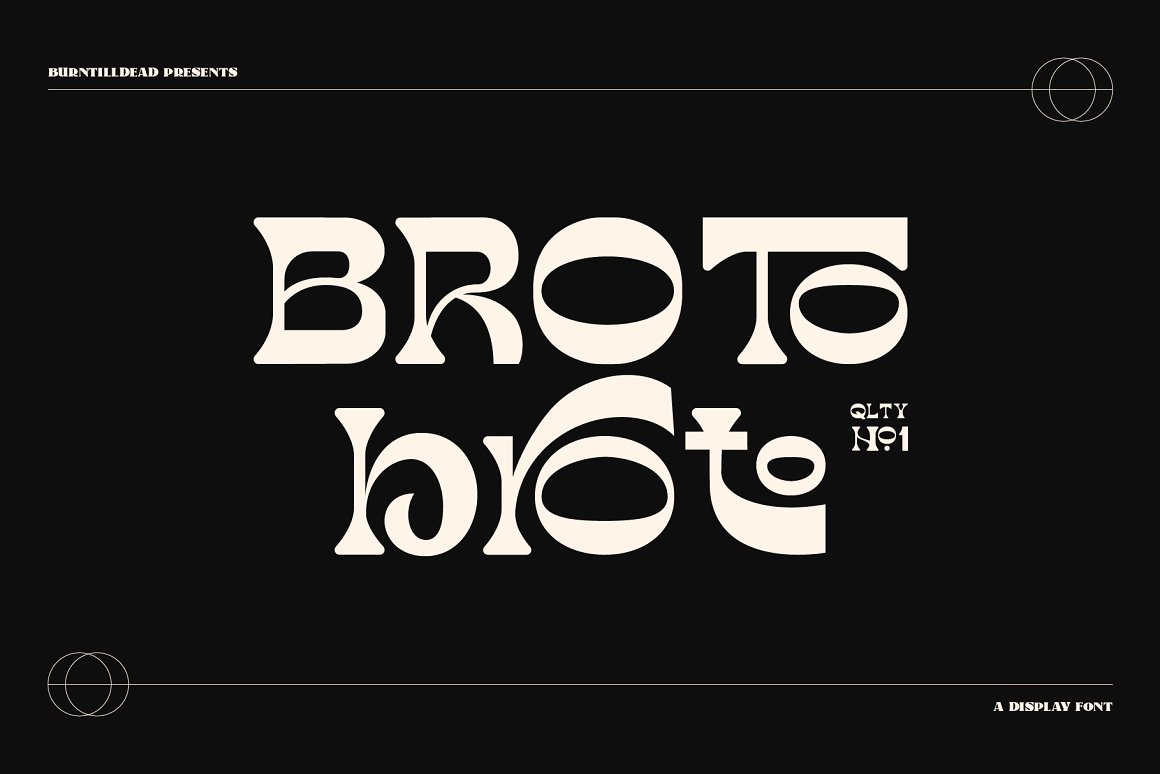
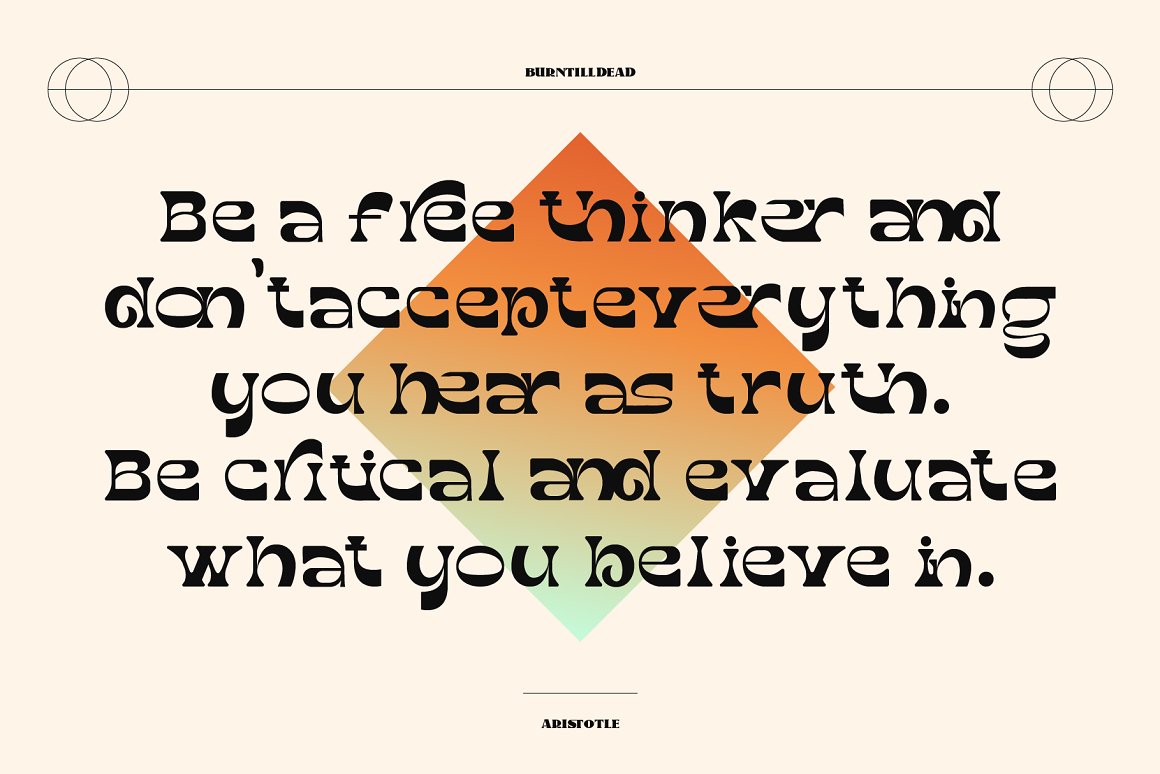
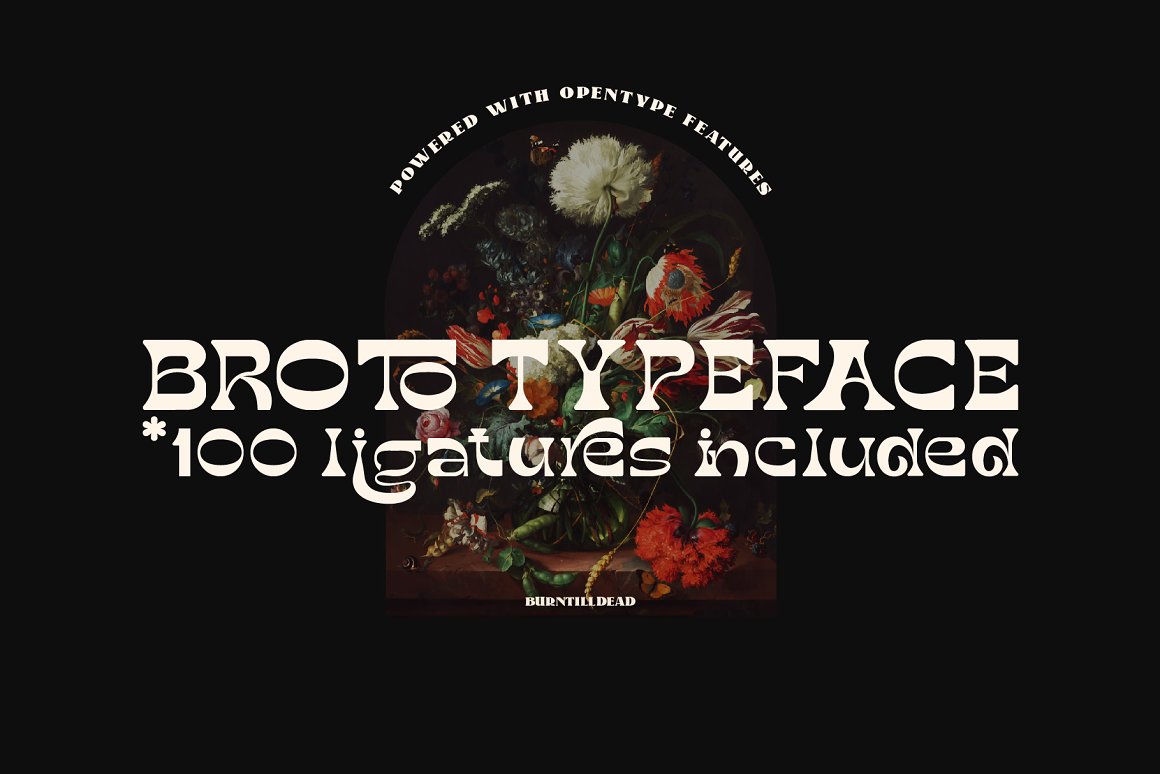
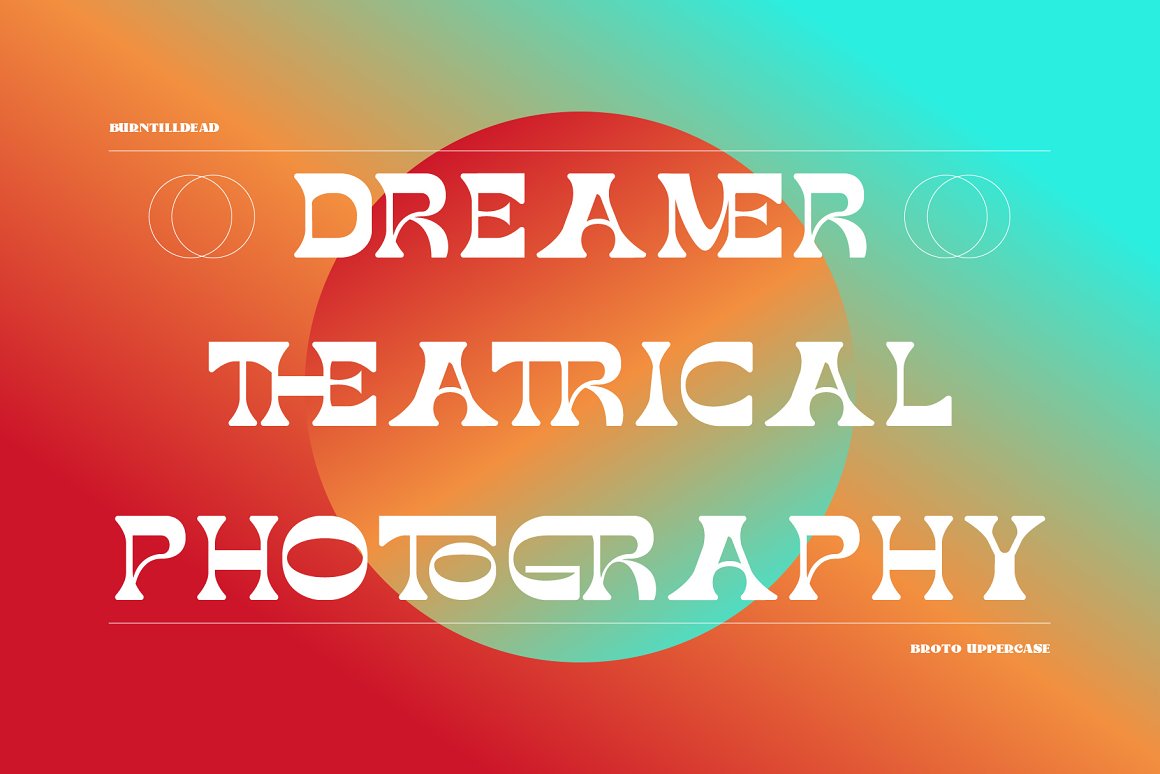
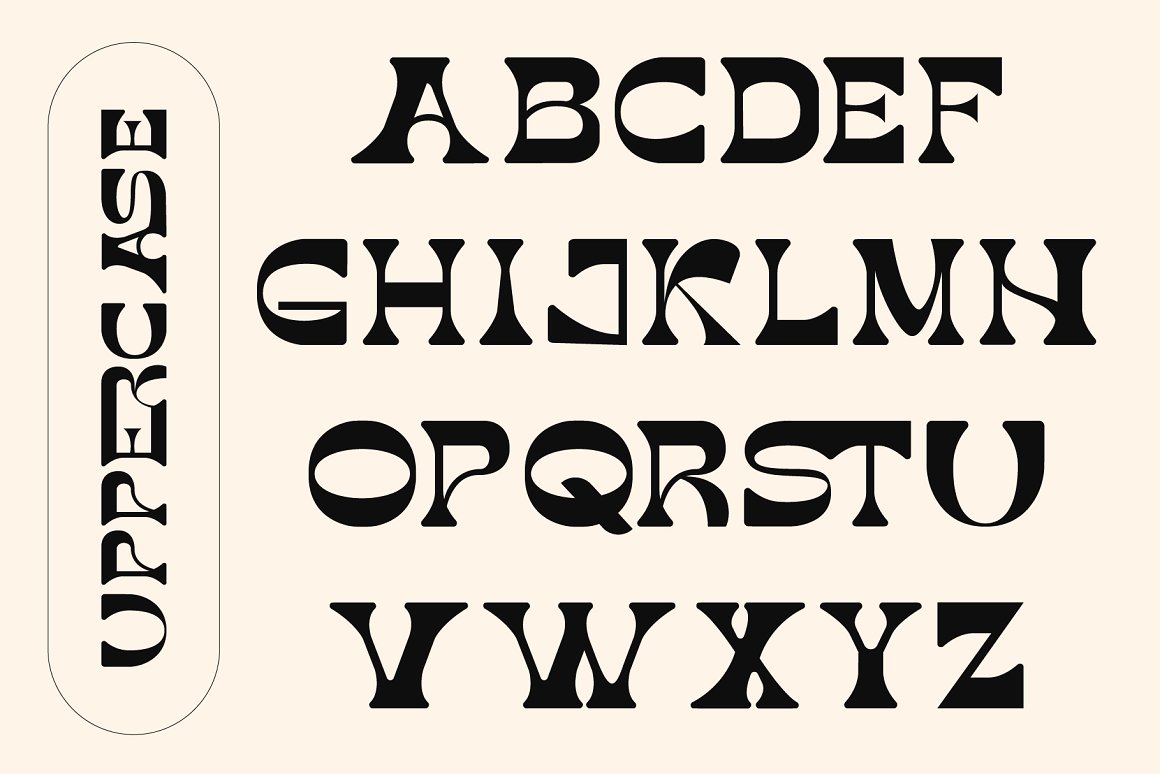
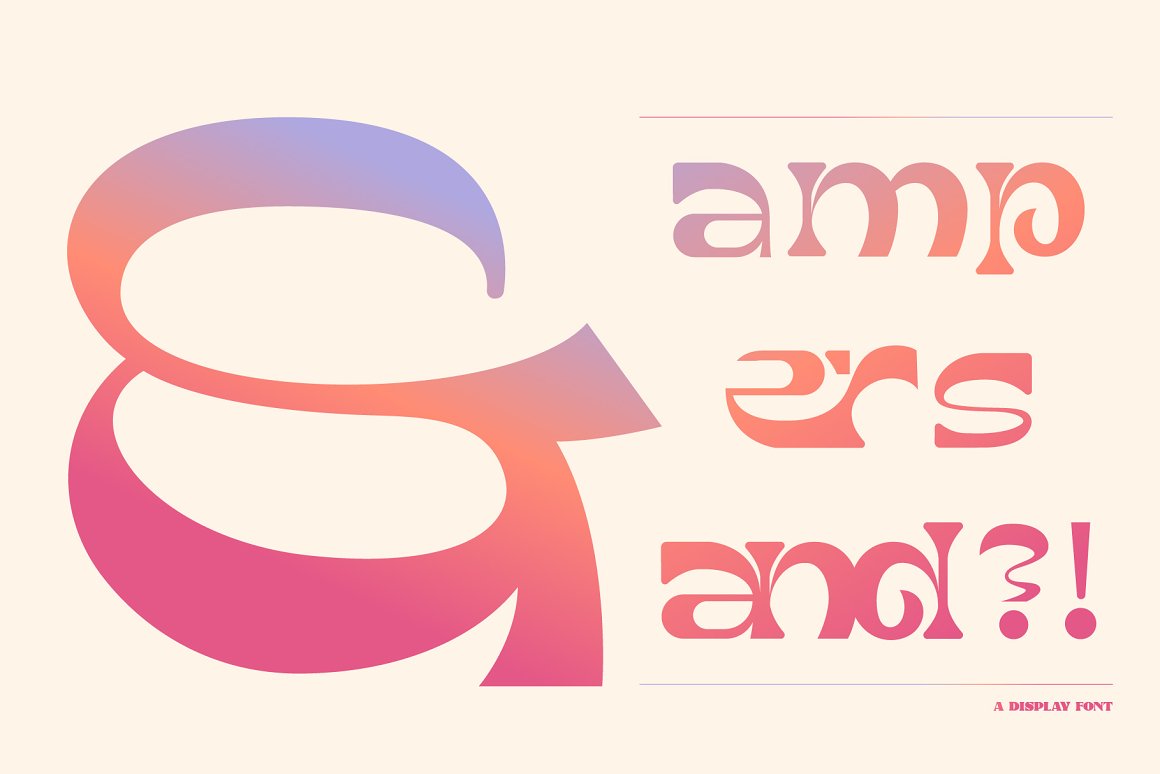
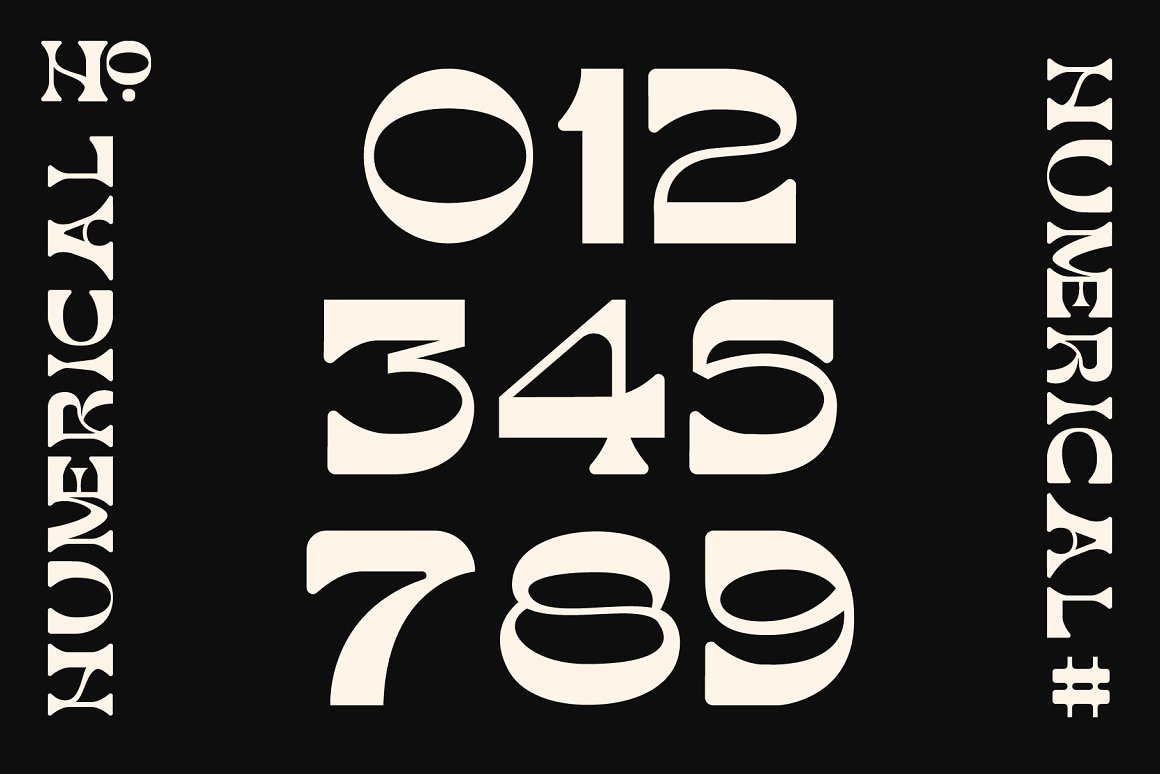
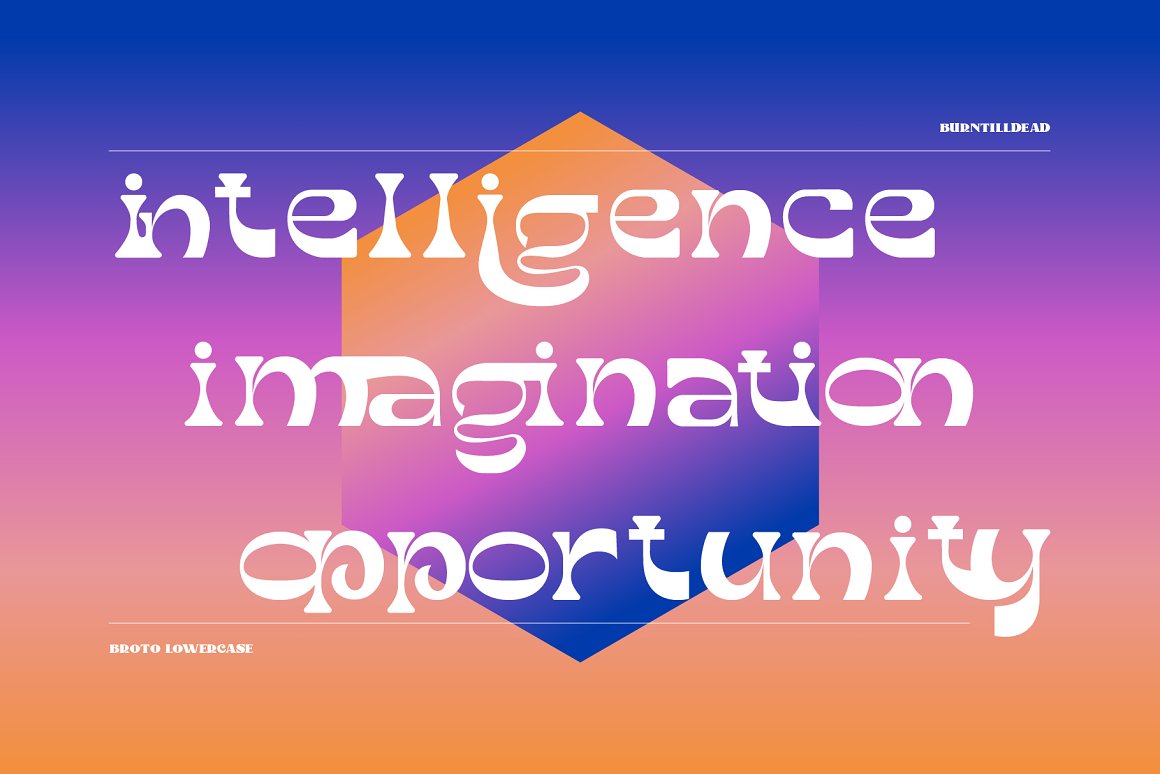
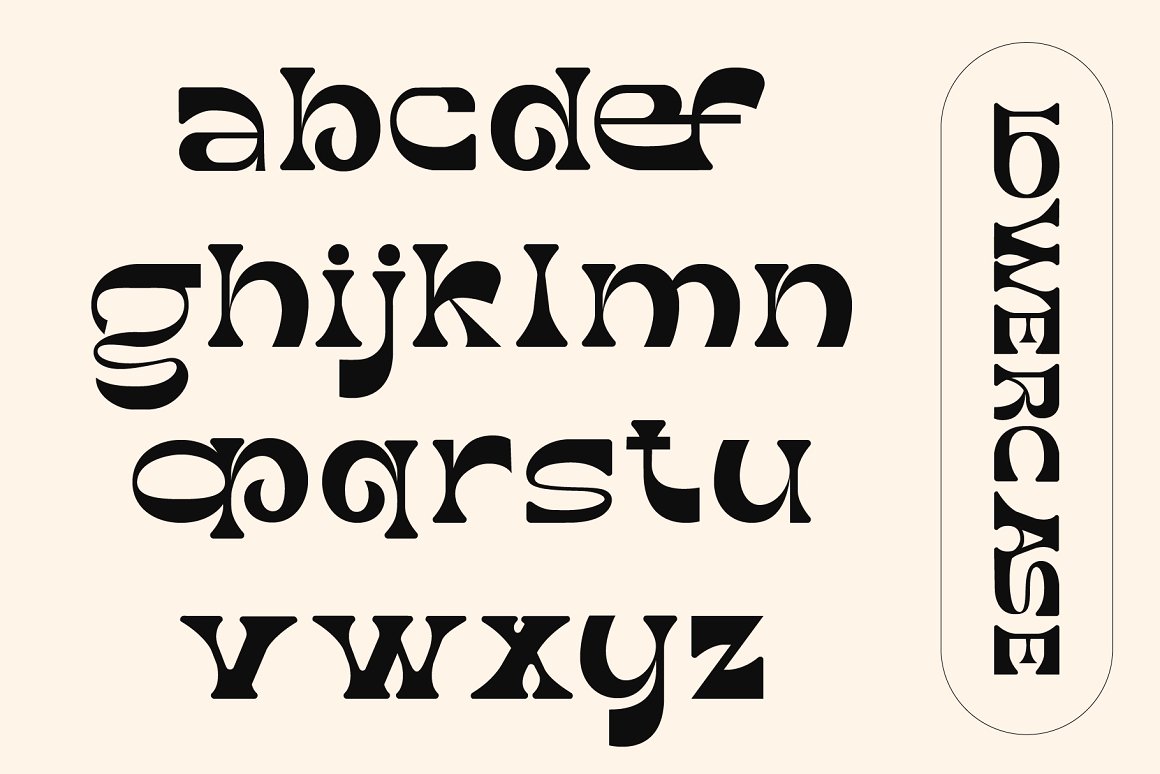
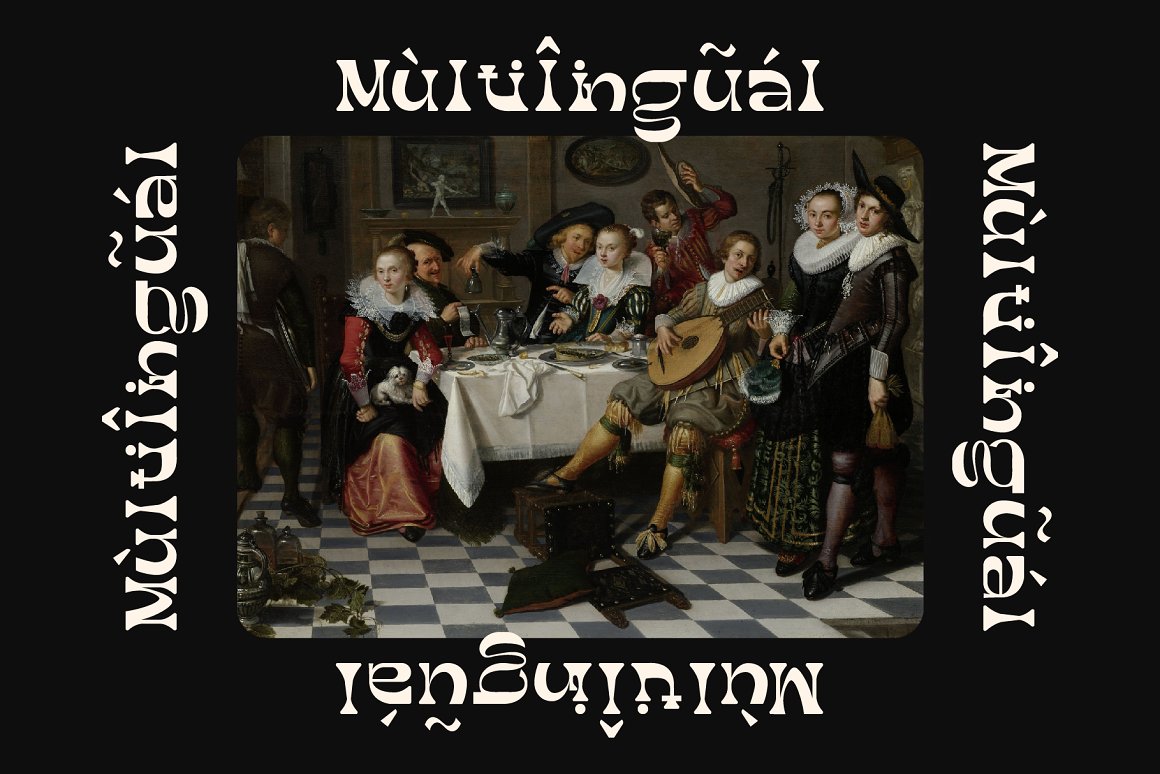
02. Glitcher – 100 ligatures font from Burntilldead
Proudley present “Glitcher” typeface. Powered with +100 ligatures to bring fluent combination & +70 alternate characters to get dynamic & more aesthetic looks. If your application does not feature a glyph palette, We also add the characters map in PDF to help you access hidden alternates available in our OpenType fonts. Simply chose the character on the PDF you want to use to your clipboard, then return to your application and paste while using the appropriate Glitcher font. Perfect and suitable for branding, headline, logotype, sticker, editorial design, and etc.
03. Matheo font from Burntilldead
Proudley present “Matheo” a modern serif font. Powered with +140 alternate characters & 26 ligature. Really easy to use & bring standout looks once you play with the combination. We also add “Matheo 2” & “Matheo 3” incase your App or software doesn’t support glyph panel. Perfect and suitable for branding, headline, logotype, sticker, editorial design, and etc.
04. Boreta -75 Ligatures & 99 Alternates from Burntilldead
Introducing “Boreta” brand new display font with high contrast letterforms. Powered with 75 ligatures & 99 alternates to bring fluent looks combination. Perfect and suitable for branding, headline, logotype, sticker, editorial design, and etc.
05. Hantam font from Burntilldead
Hantam is a retro display font. Inspired from the bold and unique visual statements from the 80’s movie poster and iconic graphic design trend at that days. Hantam Powered with opentype features; ligature & alternate characters ready. We make all the caracters is PUA encoded and multilingual.